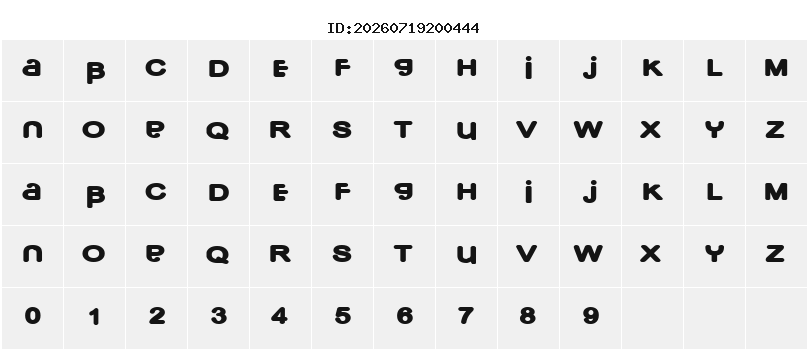
• Font Name: Espresso
About Espresso.ttf
Espresso.ttf is a modern, elegant sans-serif font designed for ultimate readability and visual harmony. Perfect for branding, headlines, web design, and print materials.